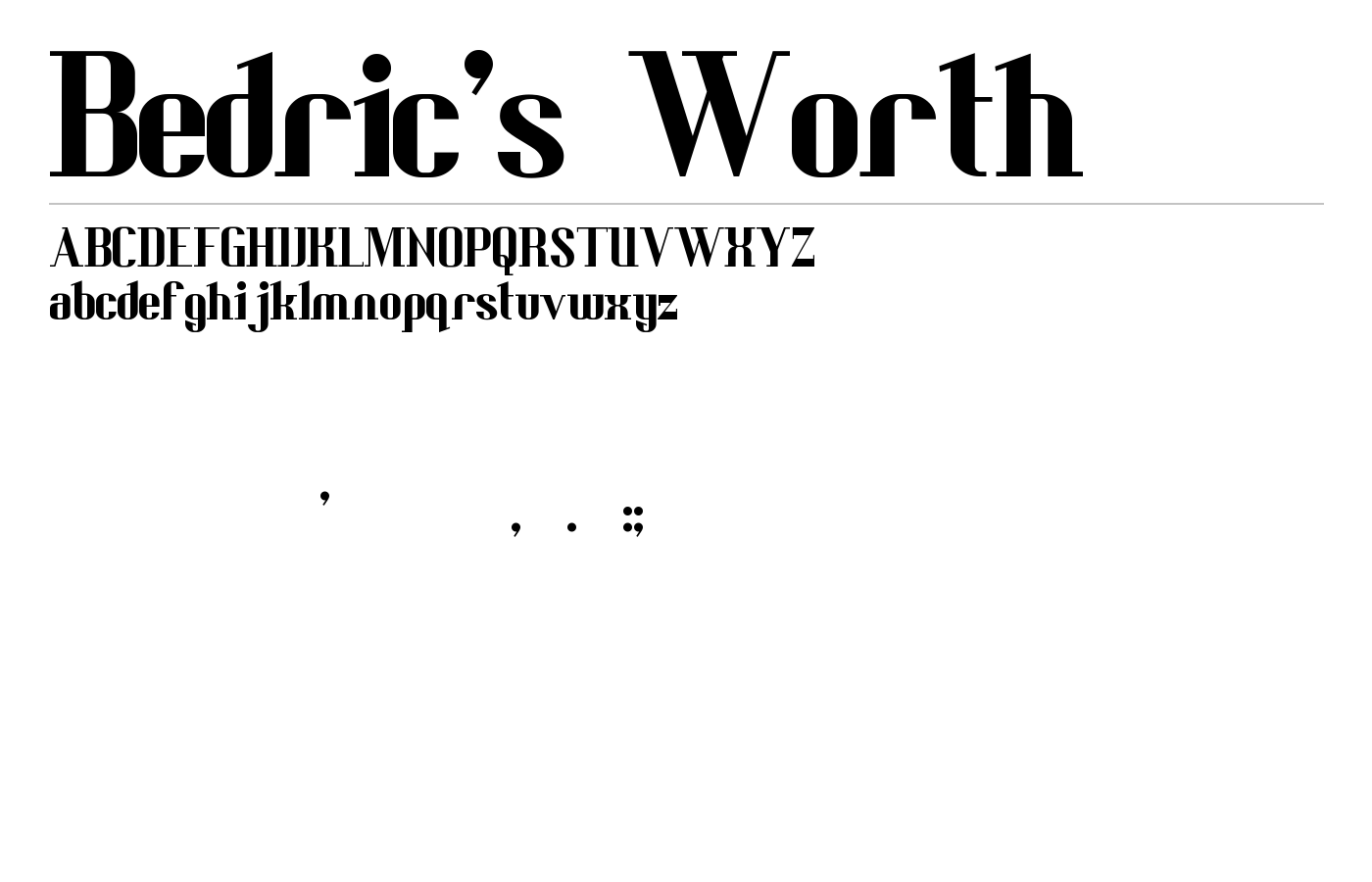
Bedric’s Worth is a bold slab serif font with a striking contrast between thick and thin strokes, featuring sharp, bracketed serifs and a tall, condensed structure that gives it a strong, elegant presence. Its unique letterforms, such as the single-story lowercase “a” and distinctive uppercase characters, lend a vintage yet modern flair, ideal for luxury branding, editorial headlines, and stylish packaging where a sophisticated and authoritative tone is desired.
Bedric's Worth Font